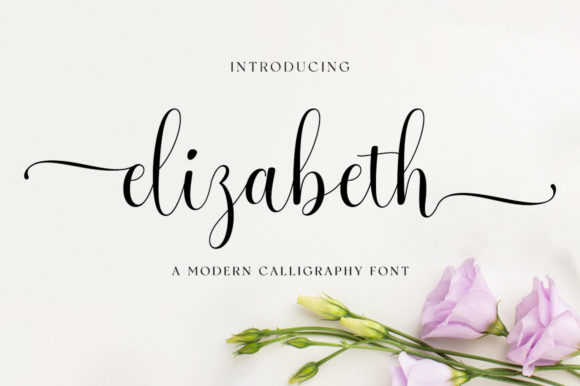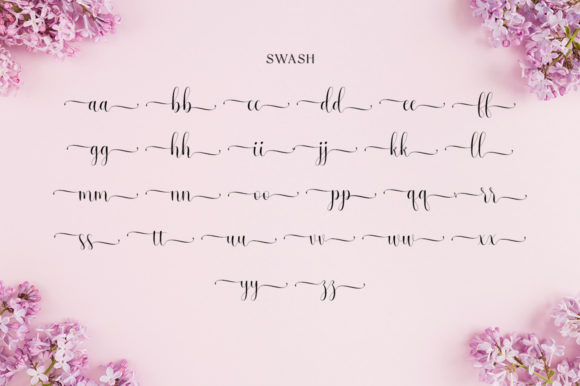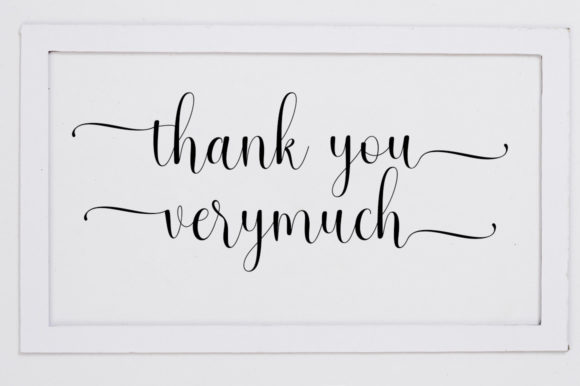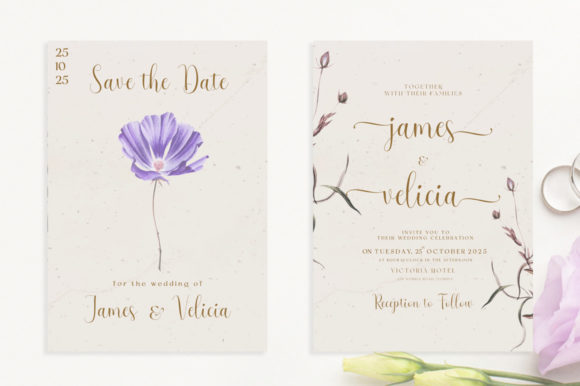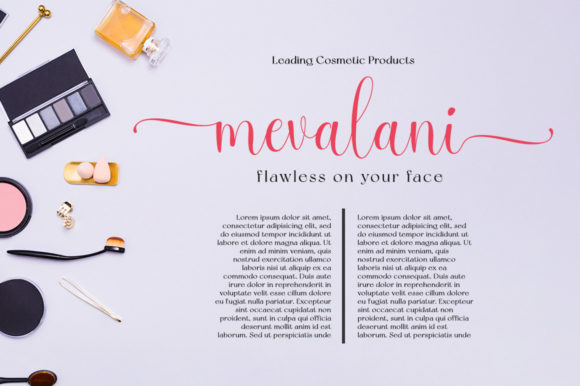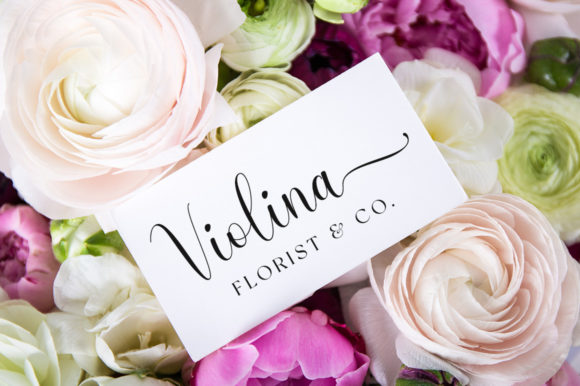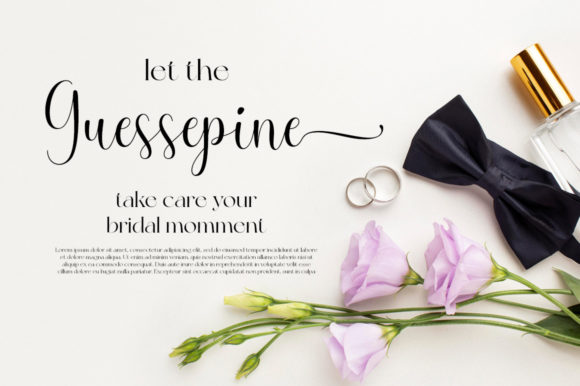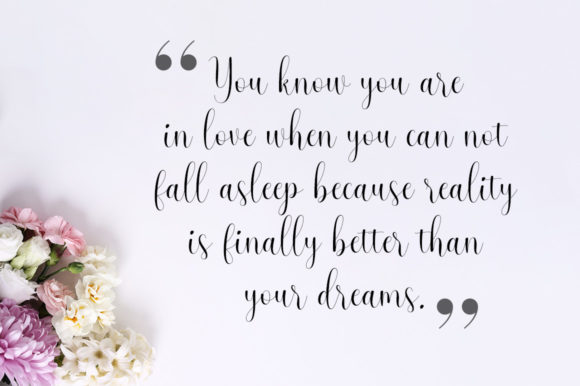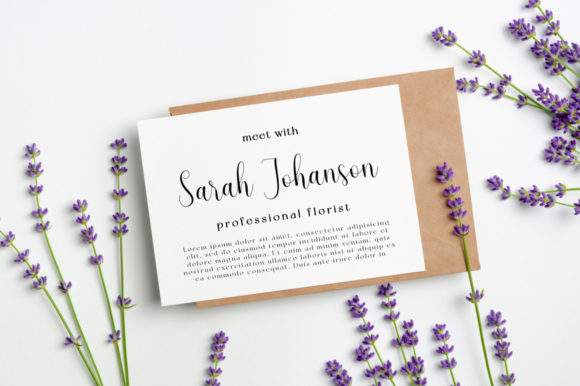
Elizabeth Font
About Elizabeth Font
Elizabeth is a delicate script font. It is PUA encoded which means you can access all glyphs and swashes with ease! Use it for cards, invitations, letters or pretty much anything that requires a romantic vibe.